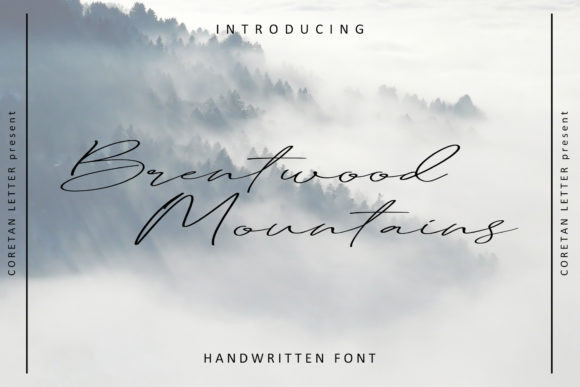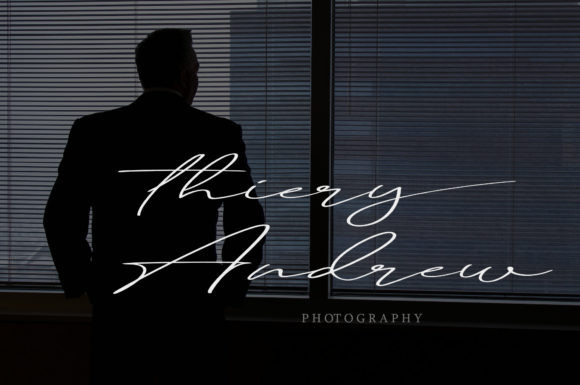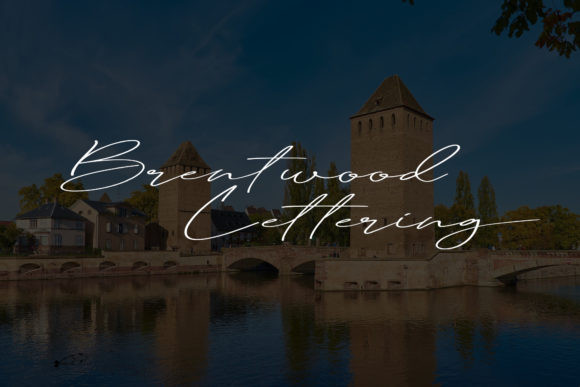
Brentwood Mountains Font
Brentwood Mountains FontBrentwood Mountains is a beautiful and refined script font. It has a classy, elegant and modern look that can be used for logos, branding, invitations, stationery, wedding designs, social media posts, and much more!